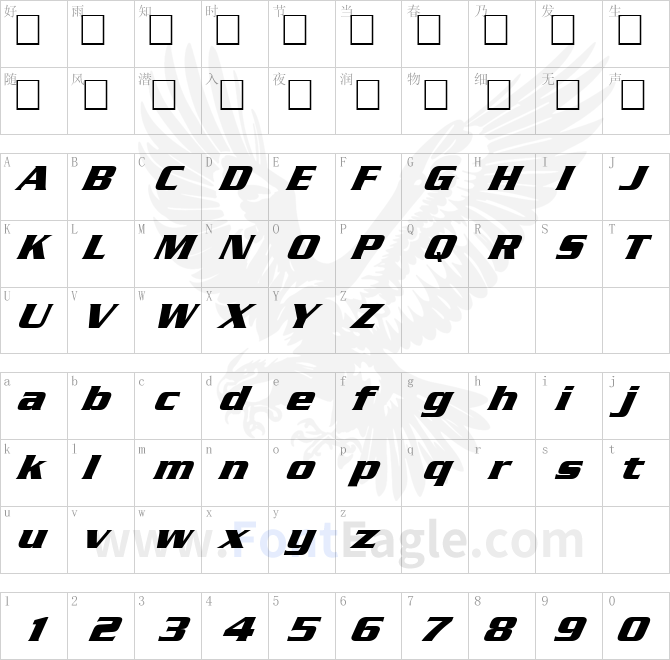
FZ-ROMAN-11-ITALIC is a great font, widely used in graphic design, single-page menu design, poster design and other fields, and is deeply loved by designers.FZ-ROMAN-11-ITALIC download.